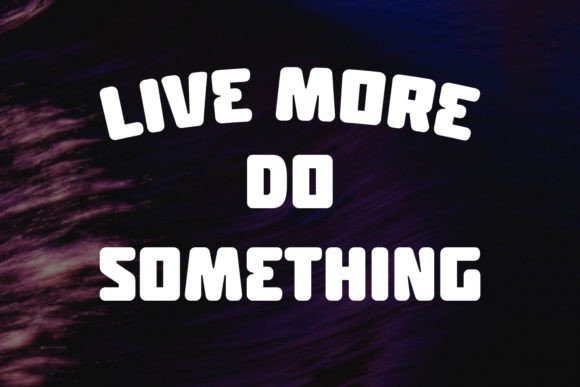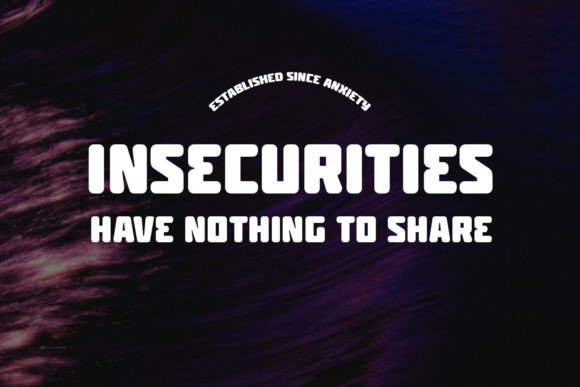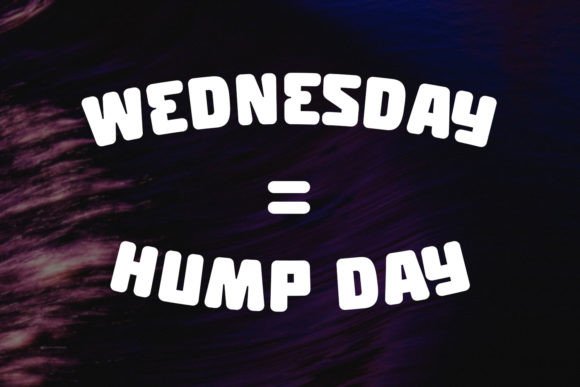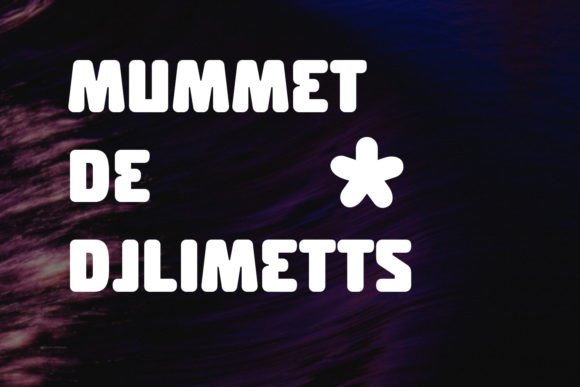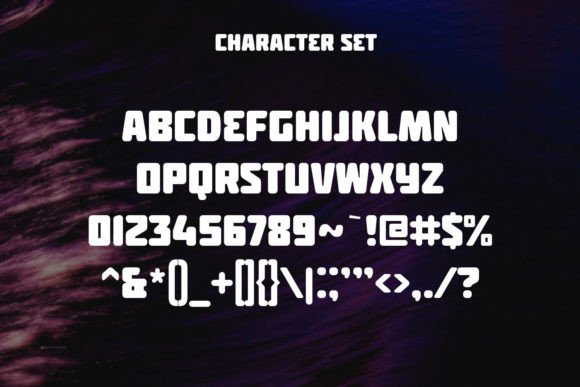
Introducing Eduka Font: The Ultimate Squarish Sans Serif Display Font
Are you a designer or crafter looking for a font that can elevate your creative projects to new heights? Look no further than Eduka Font, a stunning squarish sans serif display font that’s sure to become a true favorite in your collection. With its unique blend of modernity and sophistication, Eduka Font has the potential to bring each of your creative ideas to the highest level.
What is Eduka Font?
Eduka Font is a carefully crafted squarish sans serif display font that’s designed to make a statement. Its squarish shape gives it a distinctive look that’s both modern and edgy, while its sans serif design ensures that it’s clean and easy to read. Whether you’re looking to create a bold logo, a striking headline, or a eye-catching poster, Eduka Font is the perfect choice.
Key Features of Eduka Font
- Squarish sans serif design: Eduka Font’s unique squarish shape sets it apart from other sans serif fonts, giving it a distinctive look that’s both modern and sophisticated.
- Display font: Eduka Font is specifically designed as a display font, making it perfect for headlines, titles, and other large-format text.
- Highly legible: Despite its bold and edgy design, Eduka Font is highly legible, even at small sizes.
- Multilingual support: Eduka Font supports multiple languages, making it a great choice for designers and crafters who work with international clients.
Why Choose Eduka Font?
So why should you choose Eduka Font for your next design project? Here are just a few reasons:
- Unique and distinctive: Eduka Font’s squarish sans serif design sets it apart from other fonts, giving your designs a unique and distinctive look.
- Versatile: Eduka Font is highly versatile, and can be used for a wide range of design projects, from logos and branding to posters and packaging.
- Easily customizable: Eduka Font is easy to customize, allowing you to tailor it to your specific design needs.
Design Inspiration with Eduka Font
Eduka Font is a versatile font that can be used for a wide range of design projects. Here are a few design inspiration ideas to get you started:
- Logos and branding: Use Eduka Font to create a bold and eye-catching logo or brand identity.
- Posters and flyers: Use Eduka Font to create striking posters and flyers that grab attention.
- Packaging design: Use Eduka Font to create eye-catching packaging designs that stand out on store shelves.
In conclusion, Eduka Font is a stunning squarish sans serif display font that’s perfect for designers and crafters looking to elevate their creative projects. With its unique blend of modernity and sophistication, Eduka Font has the potential to bring each of your creative ideas to the highest level. So why wait? Download Eduka Font today and start creating!